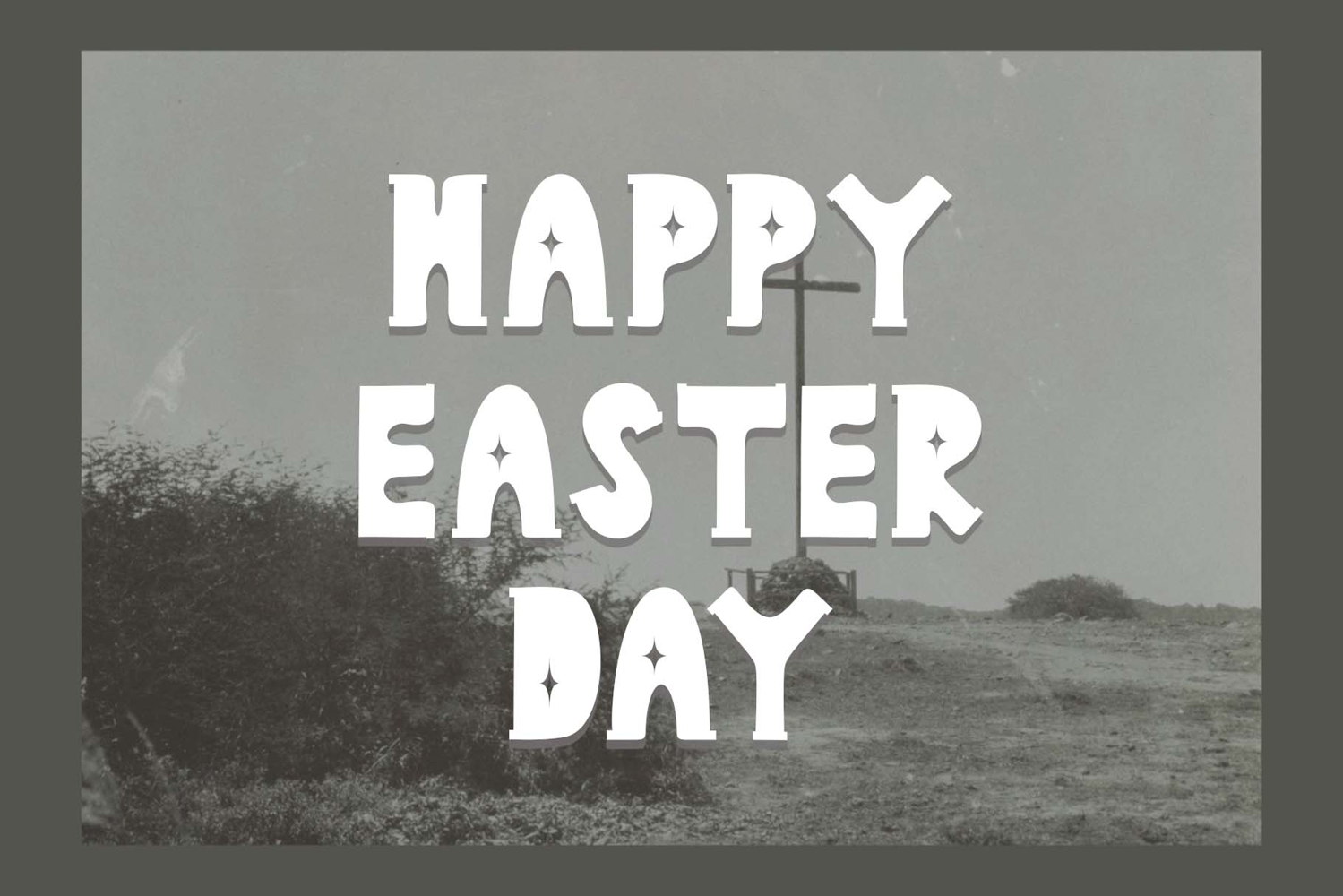
"Easter Land" is a unique and elegant display font. This font is equipped with uppercase, lowercase, numeral, punctuations and multilingual support. It is very suitable for invitations, banners, posters, prints, branding, stickers, logos, easter, spring, st patricks day, mother's day and others.